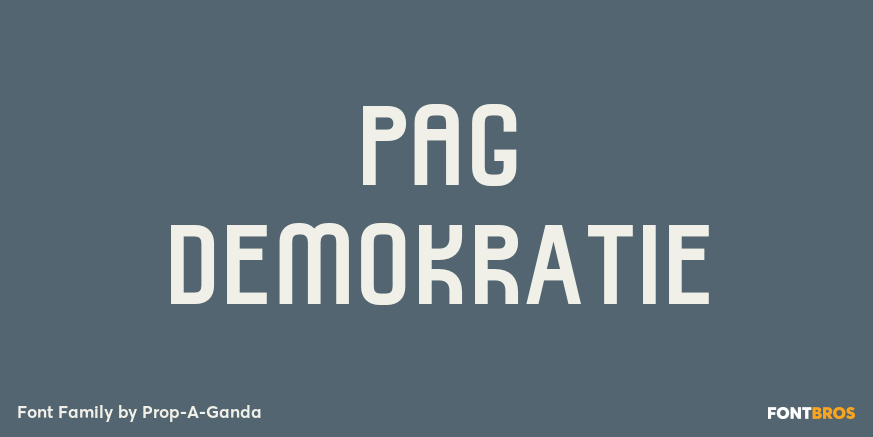
HomeFont BrosArt Deco (1910-1935)PAG Demokratie Art Deco (1910-1935)Sans Serif PAG Demokratie FacebookXPinterestWhatsApp 1 of 1 About PAG Demokratie Inspired by and based on retro propaganda posters, movie posters, shopfront lettering & advertisements in the early 20th century. This is perfect font for your retrostyle project.  DOWNLOAD NOW People also explored Aurorae Font Ronald Hewitt Font Overthinking Font Sweet Someday Southern Font Eggplant Can Cooler Mockup Noriza Font Simple Christmas Font Sabelia Font 355 0 TagsPAG Demokratie Font Previous articleLapis LazuliNext articleYWFT Black Slabbath LEAVE A REPLY Cancel reply Comment: Please enter your comment! Name:* Please enter your name here Email:* You have entered an incorrect email address! Please enter your email address here Website: Save my name, email, and website in this browser for the next time I comment. Personal Use Free Made of Concrete Personal Use Free Read more about this font Arc Personal Use Free Read more about this font Rothwell Personal Use Free Read more about this font Love Ya Personal Use Free Read more about this font BLOG Free vs Paid Fonts: Why Investing in Premium Fonts Is Worth It Free vs Paid Fonts: Why Premium Fonts Are Worth It in 2025 The debate of free vs paid fonts continues in the design world. While... Free Fonts Risk: Why Free Fonts Can Be Dangerous for Designers The 10 Best Handwriting Fonts to Add Personality to Your Designs Top 10 Handwritten Fonts That Elevate Your Designs